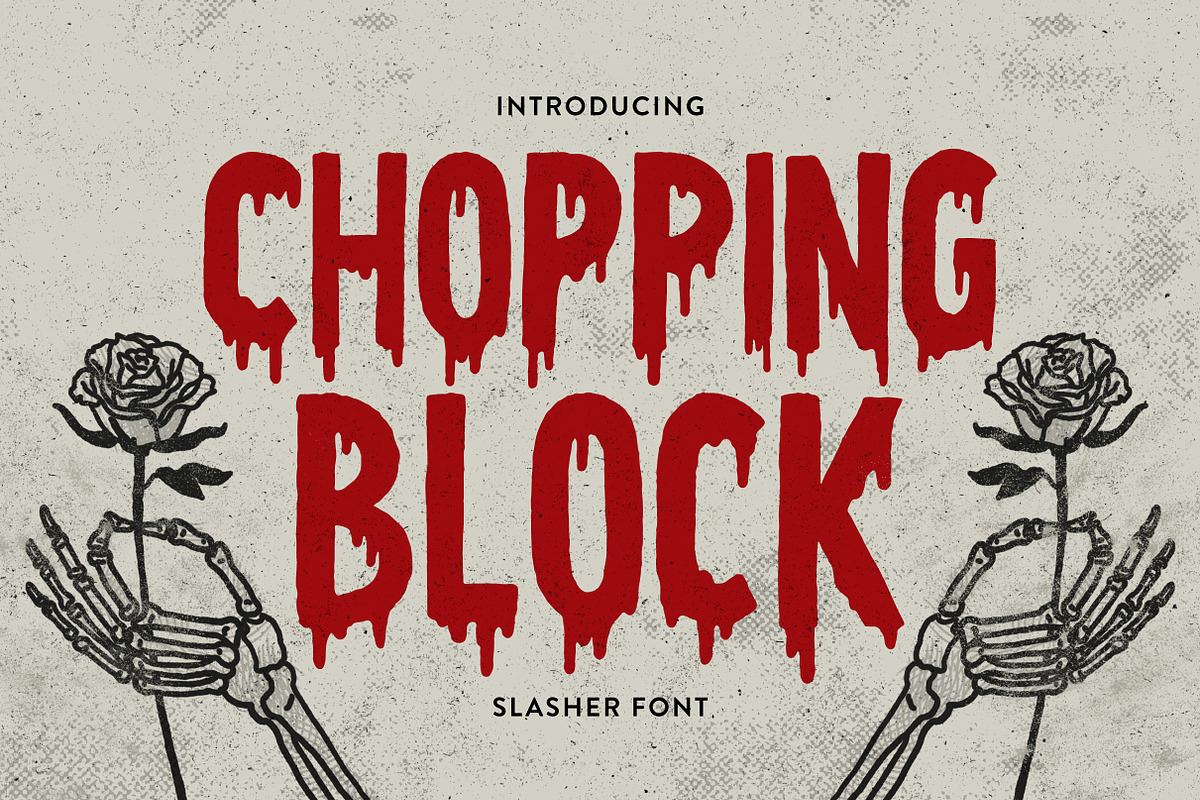
Chopping Block Font Free Download
Chopping Block Font Free Download is a bold, rugged display typeface with sharp, angular letterforms designed to make a strong impact. Inspired by a heavy, industrial aesthetic, this font is perfect for branding, logos, posters, sports designs, and any project that needs to stand out with a tough, edgy look. Its distinctive style makes it ideal for designs that convey strength and power.
Using the Chopping Block Font Free Download adds a bold, intense character to your typography. Whether you’re working on a logo for a tough brand, creating promotional material, or crafting event posters, this font gives your design a commanding, fearless presence.